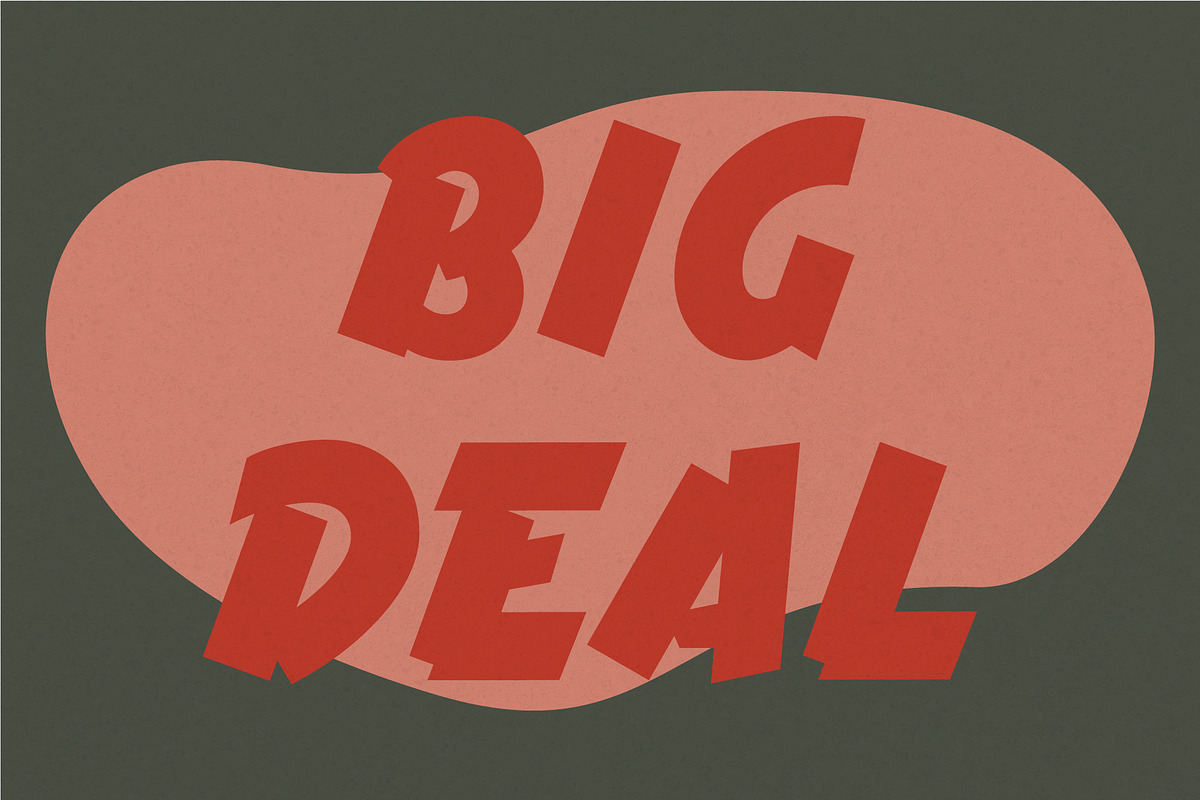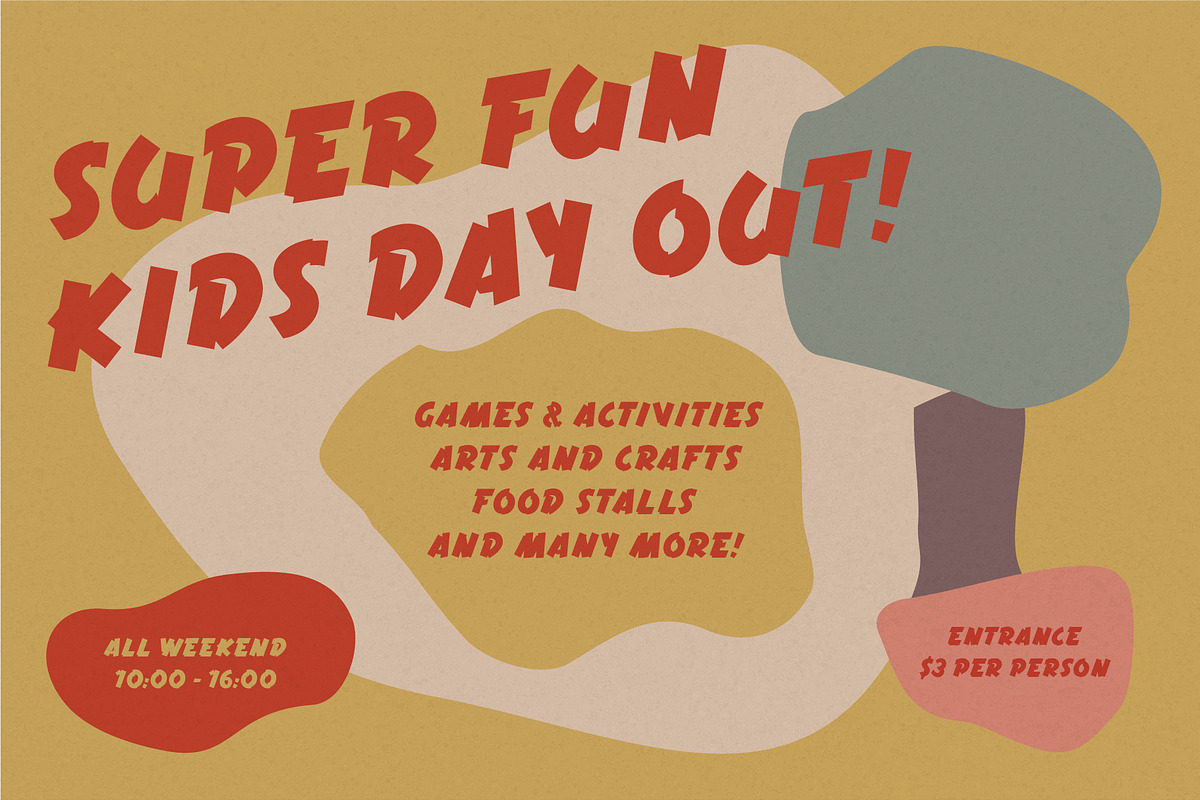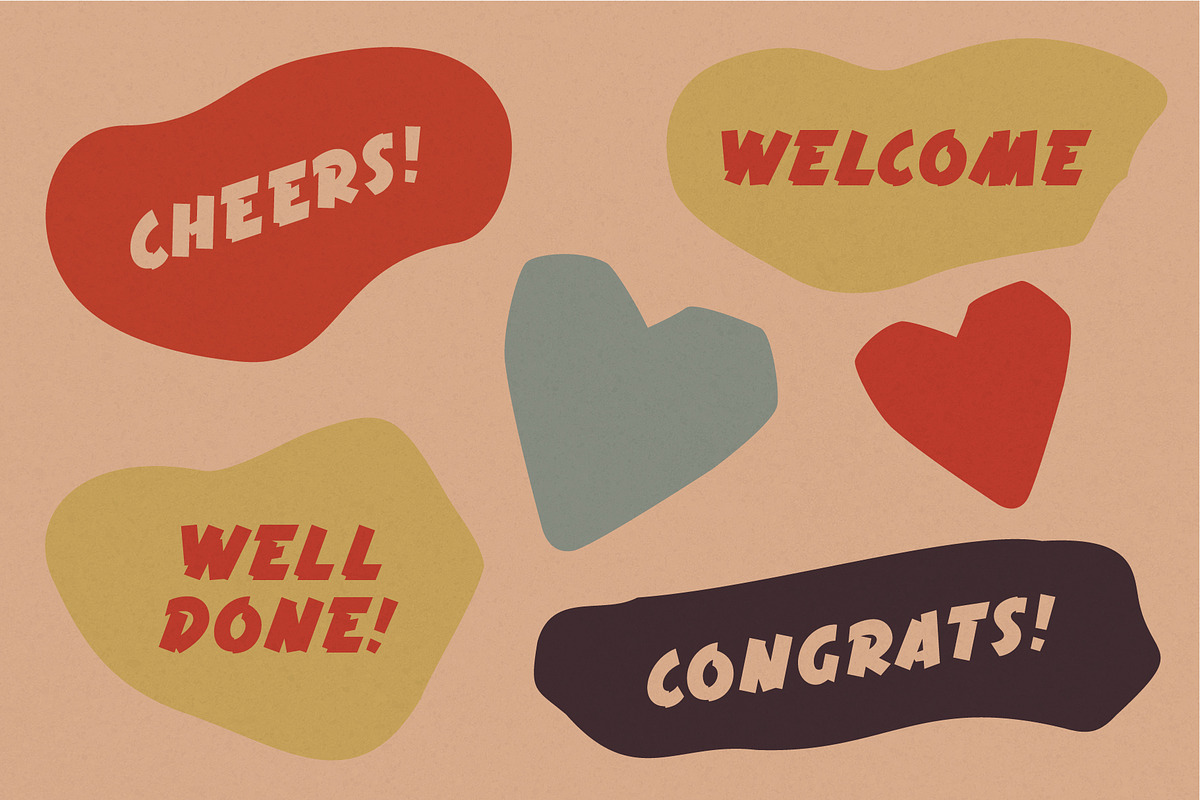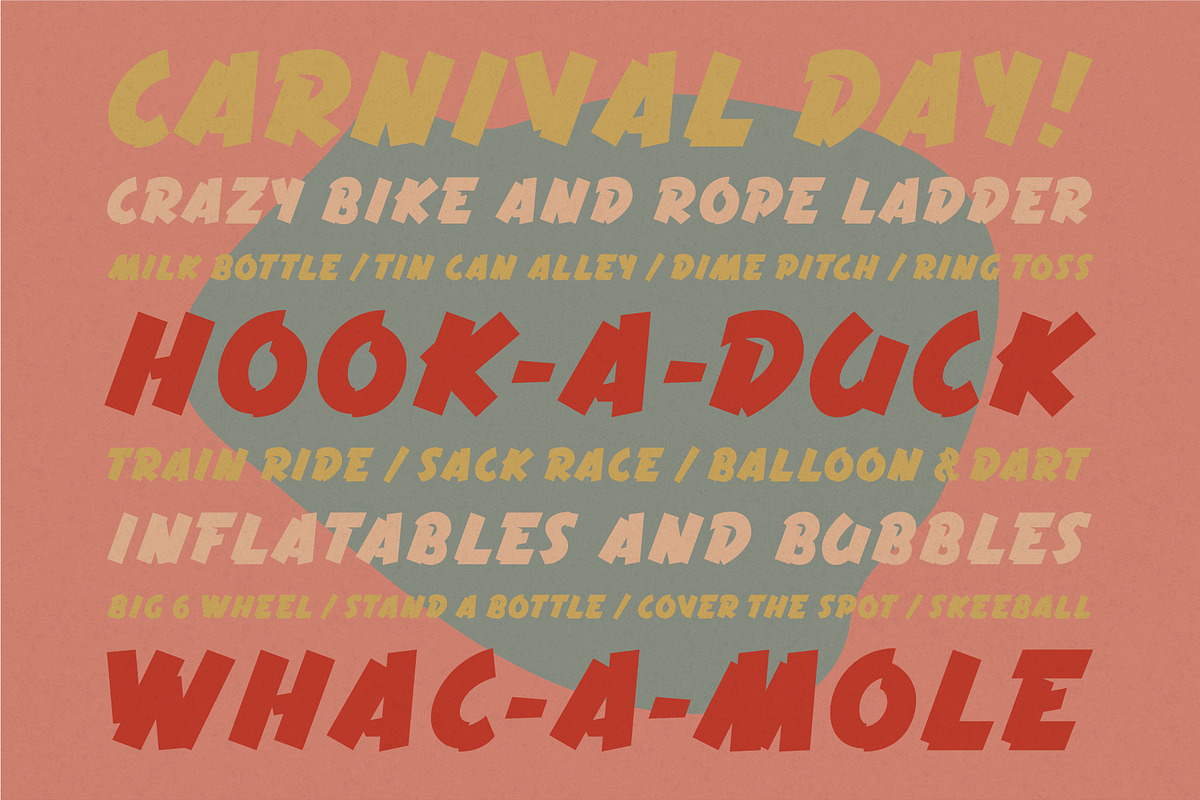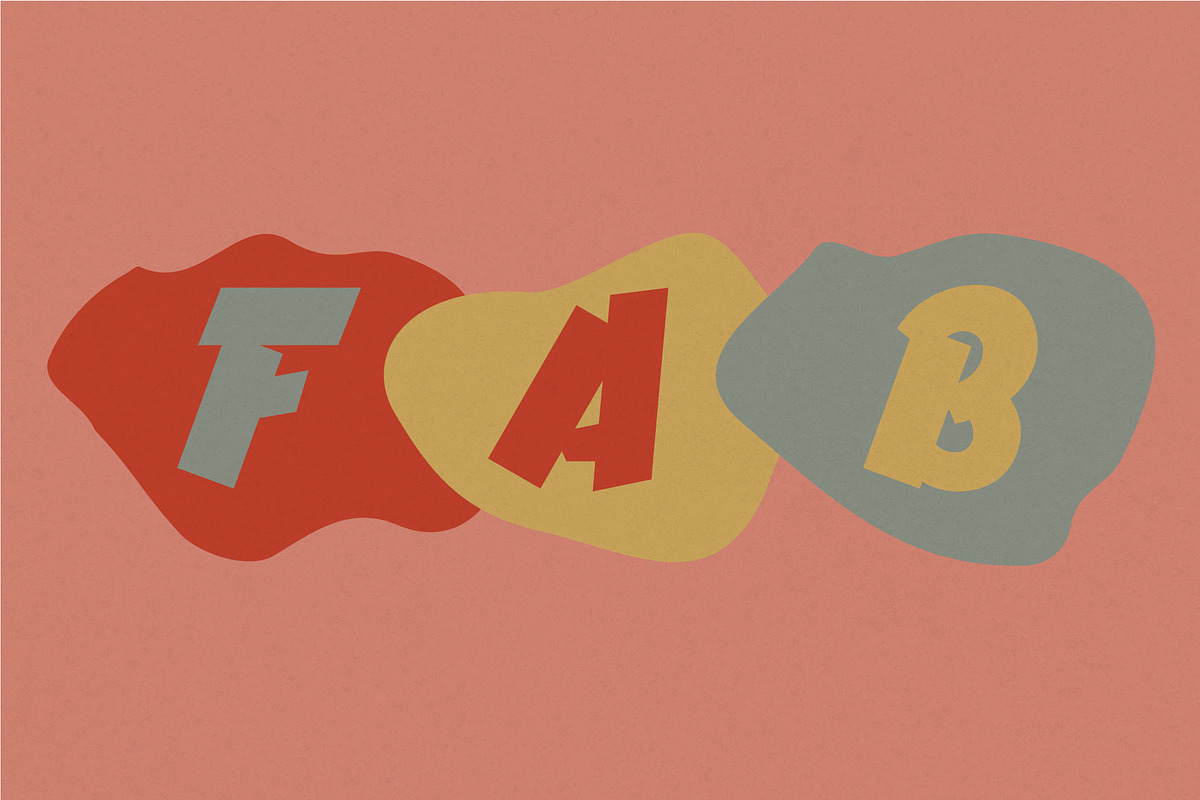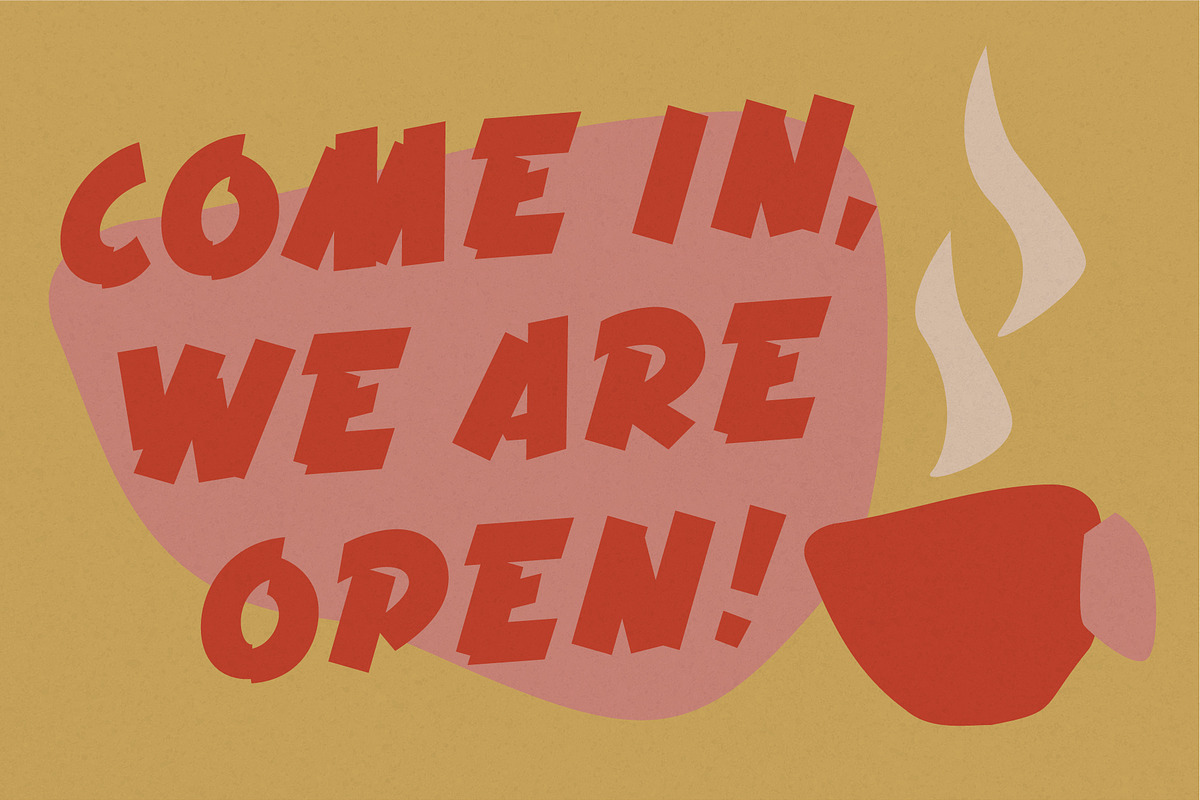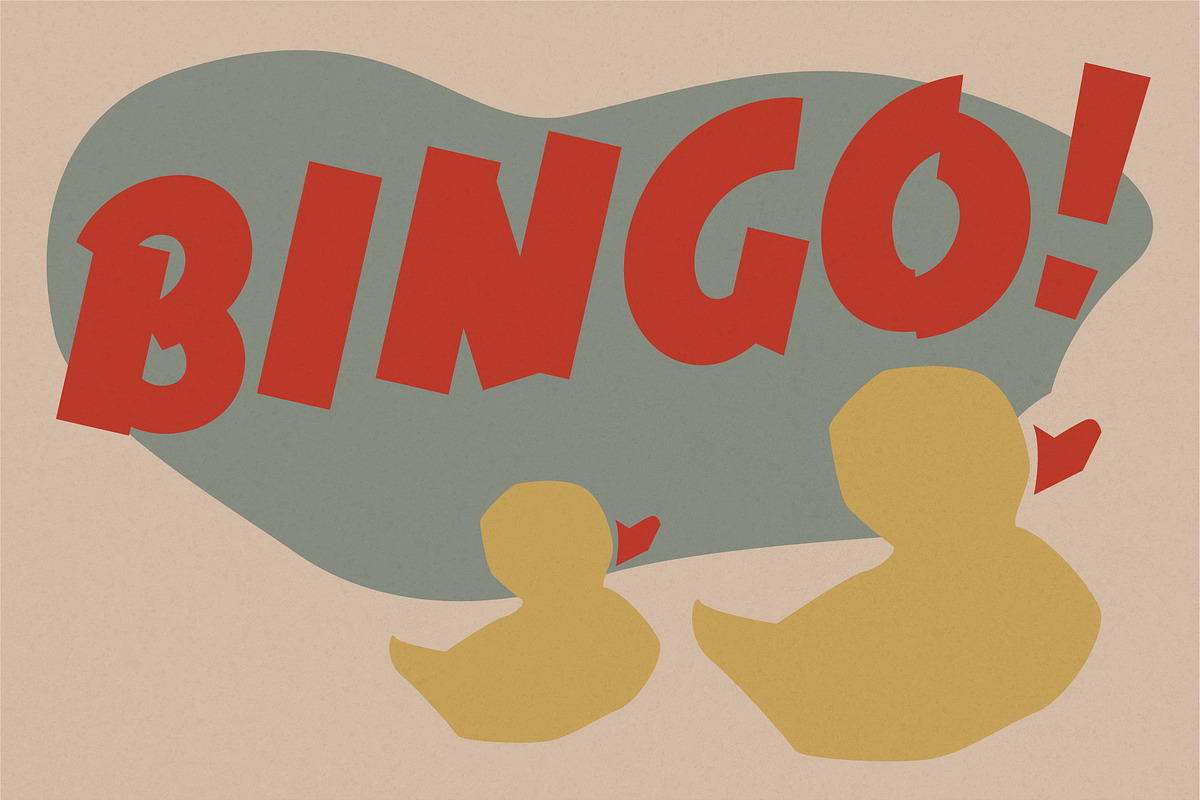
Terrazzo Mono Display Font
A warm and bold display font with a casual and cheerful attitude. Designed as an all-caps font, it is best suitable for posters, signs, advertising and packaging designs.
The character set is based on Adobe Latin 2 (extended to include Turkish) supporting most Western languages: Afrikaans, Basque, Breton, Catalan, Danish, Dutch, English, Finnish, French, Gaelic, German, Icelandic, Indonesian, Irish, Italian, Norwegian, Portuguese, Sami, Spanish, Swahili, Swedish and Turkish.